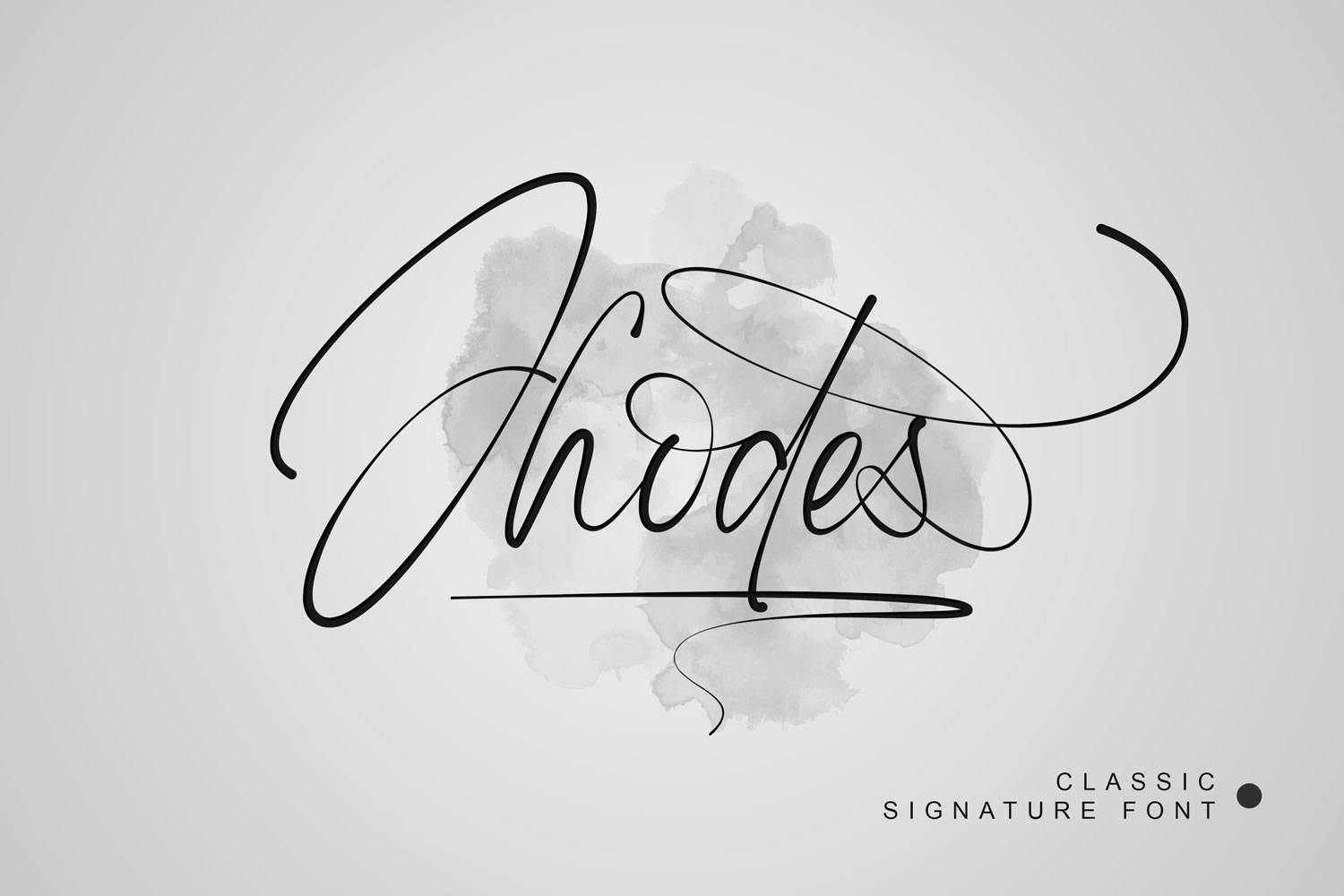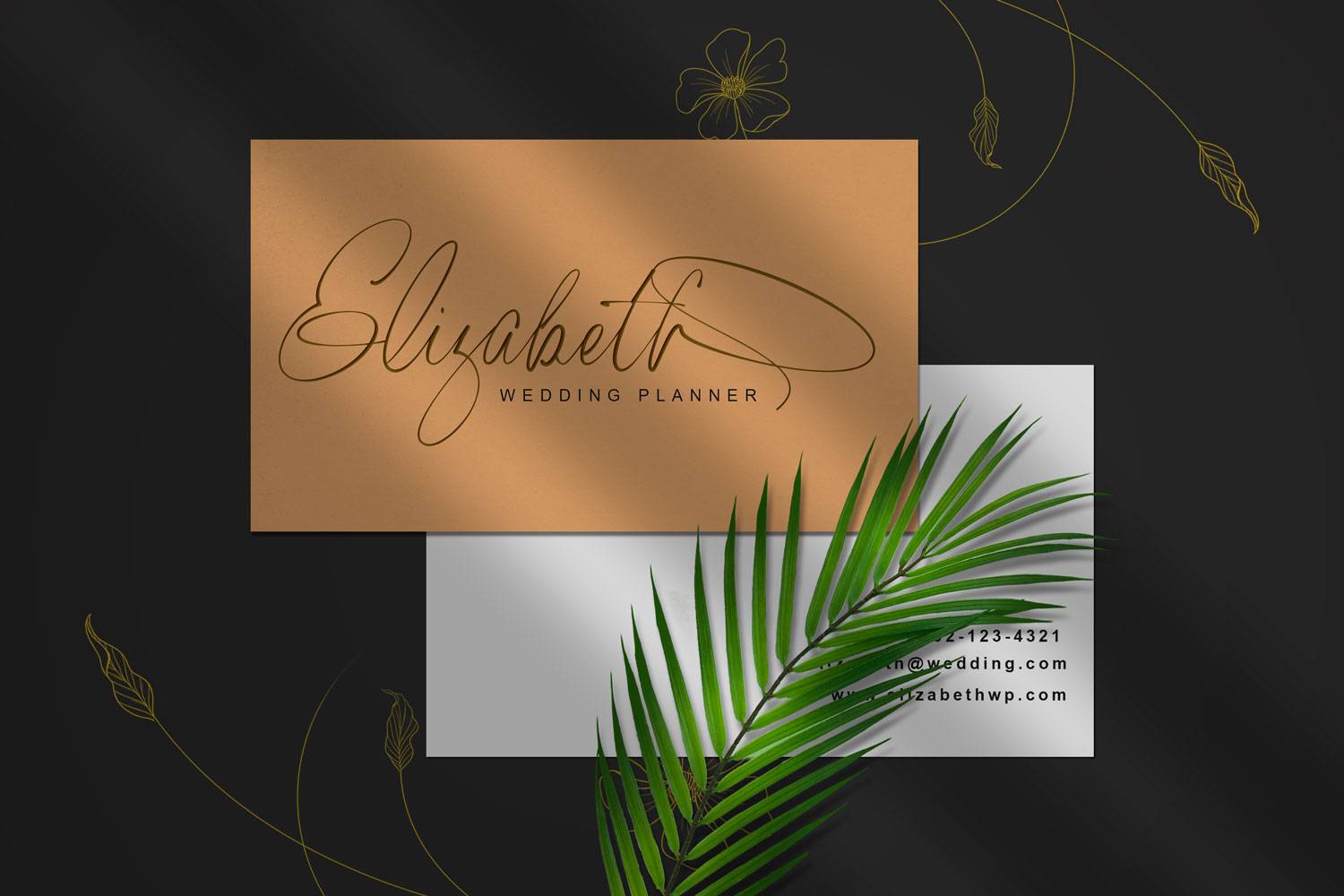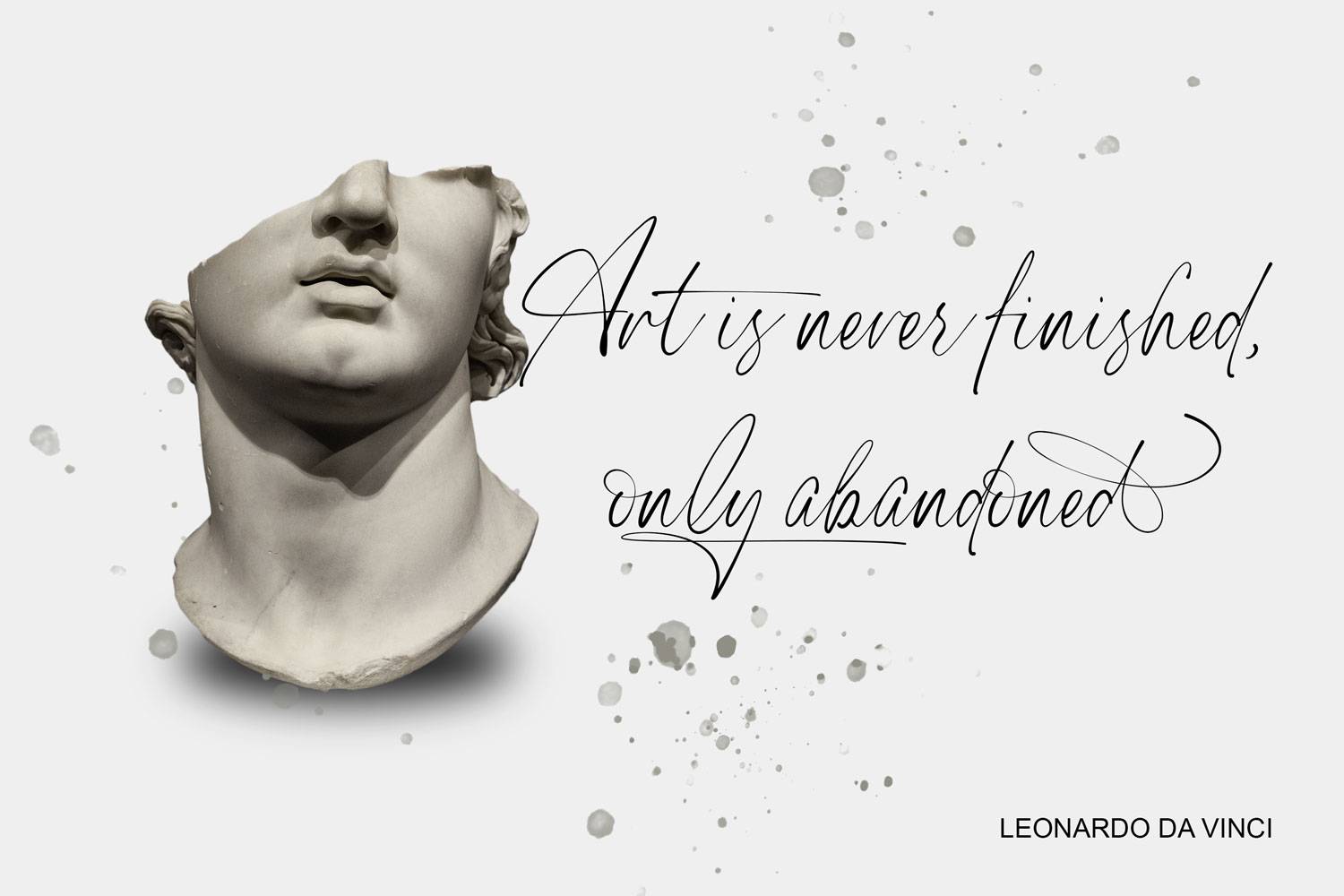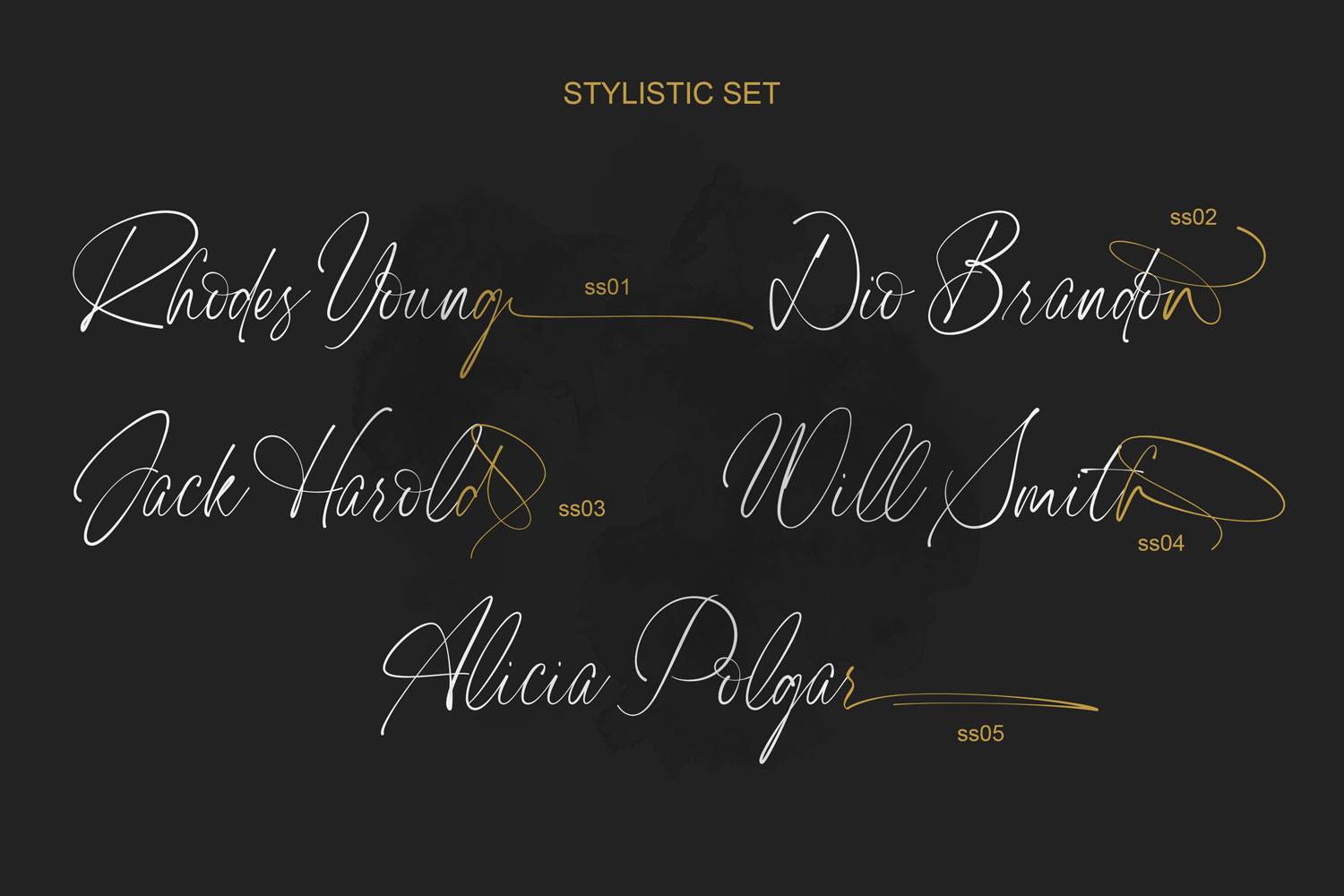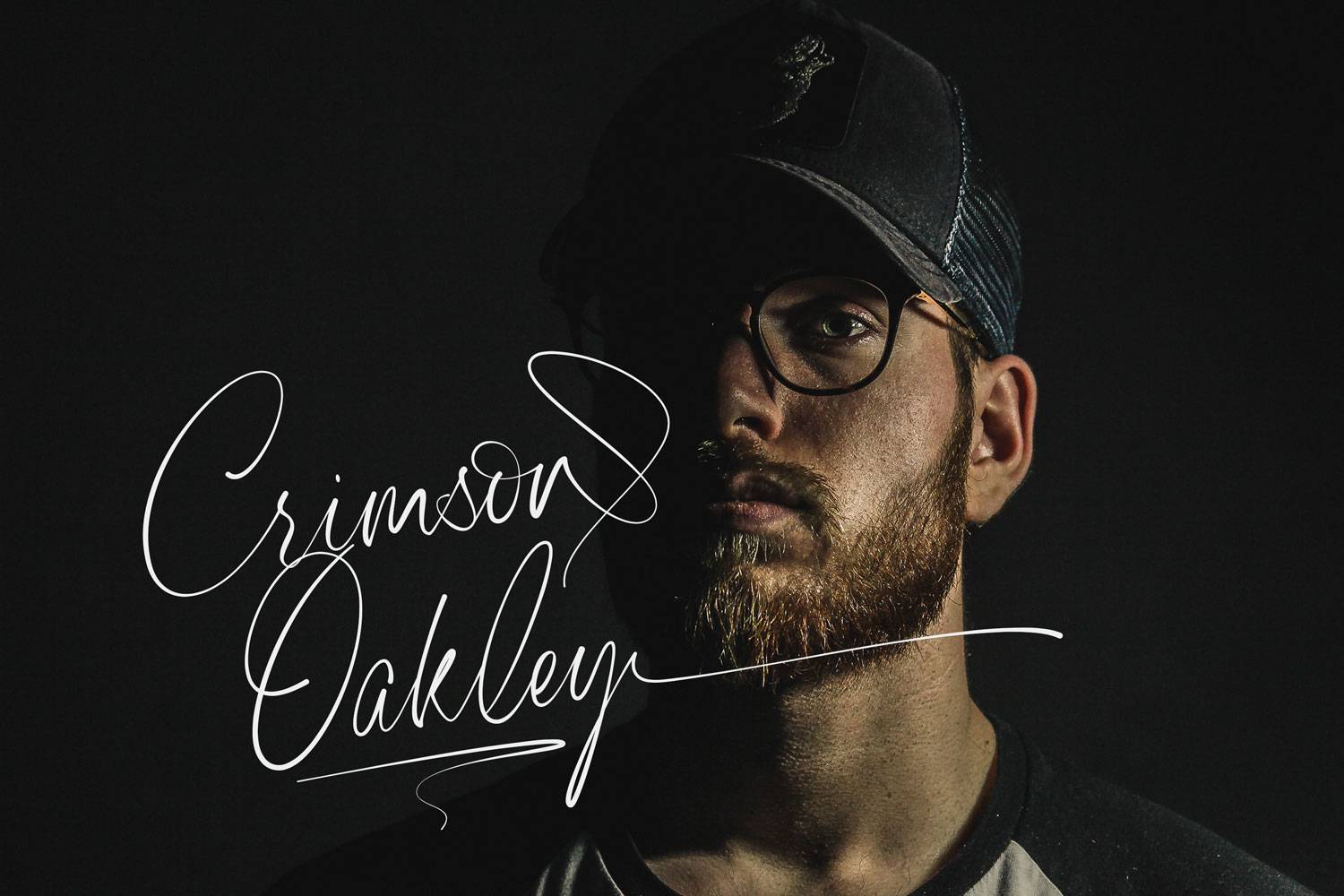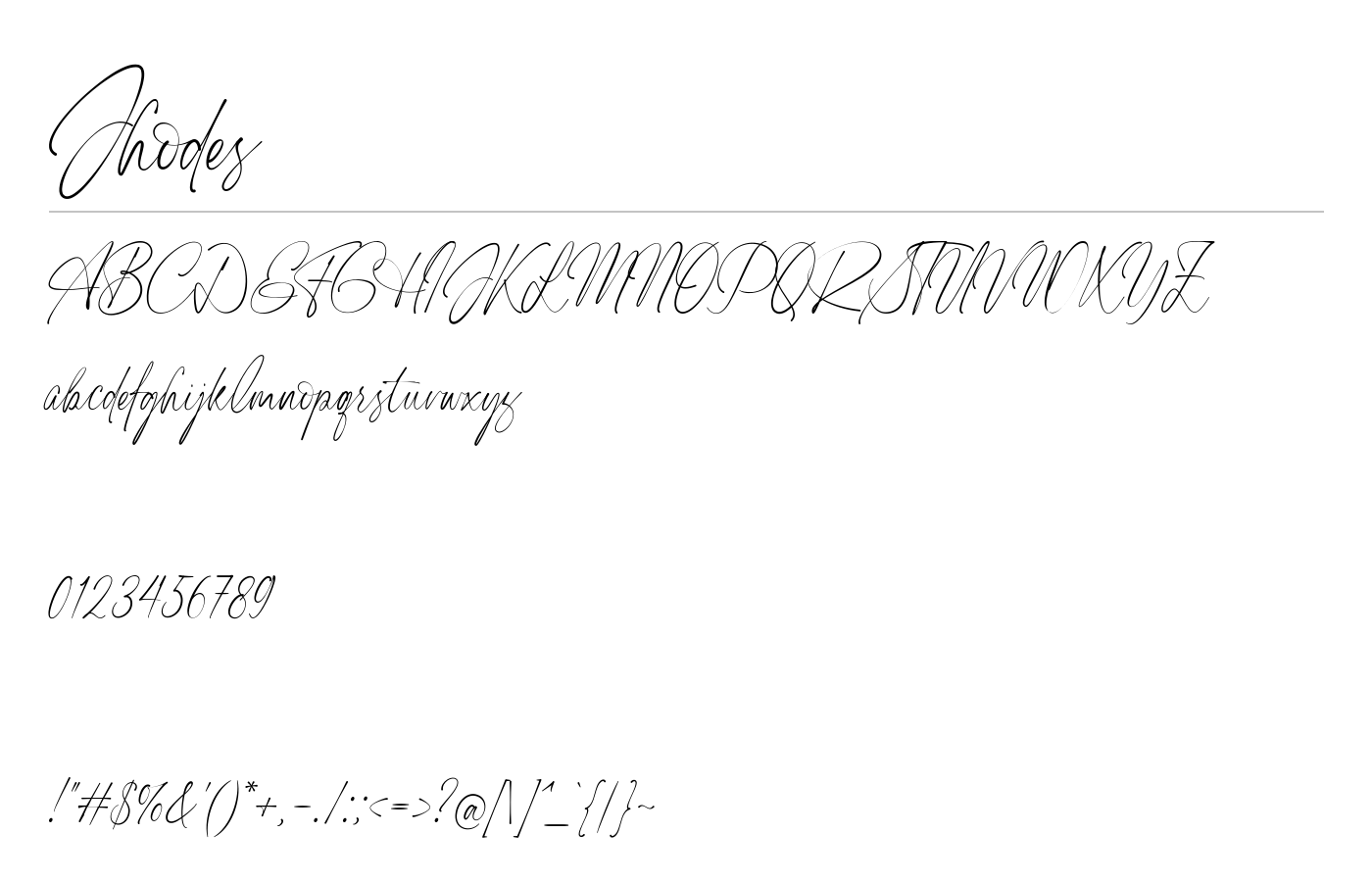
Jhodes is an elegant, delicate script font featuring thin, flowing strokes that mimic natural handwriting with a refined and feminine touch. Its tall, slender letterforms and graceful connections make it perfect for sophisticated branding, invitations, or any design that calls for a stylish, personal feel. This font works best in decorative and headline uses where a touch of elegance and charm is desired.
Jhodes Font
About Jhodes Font
| Font family | Jhodes Font |
| Designer | Lemonthe.Dwi Ahidian |